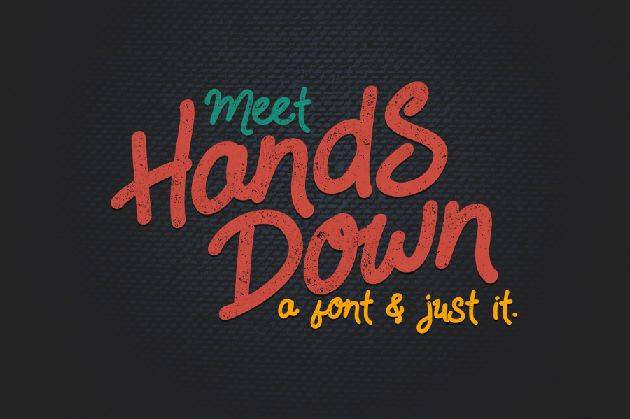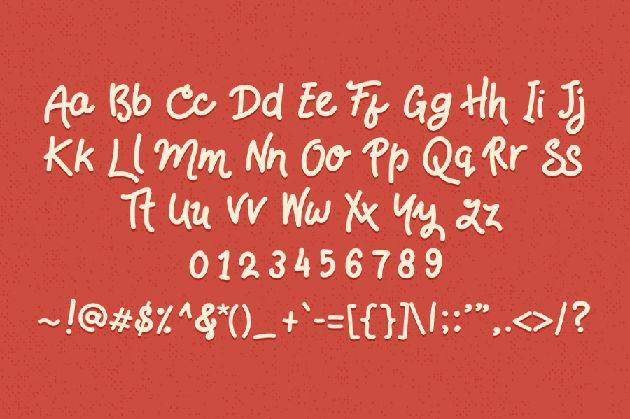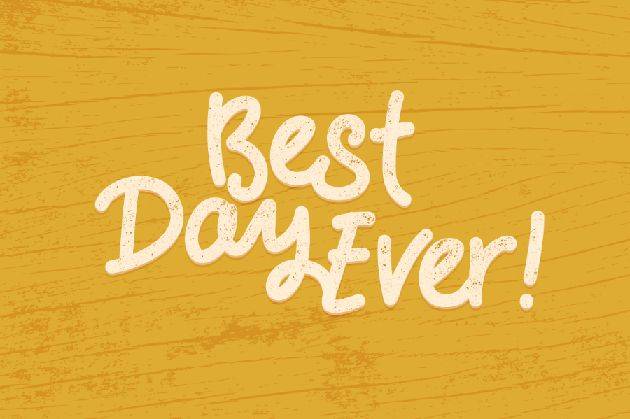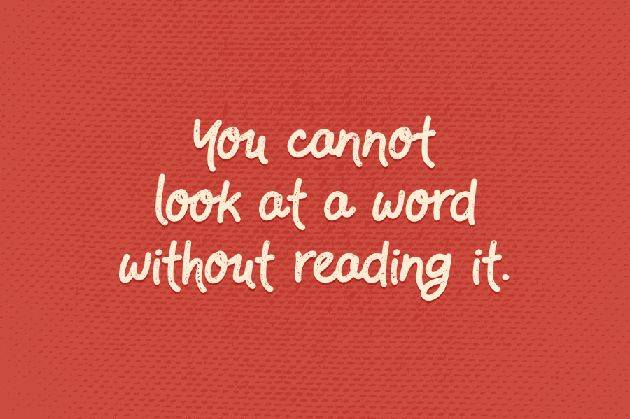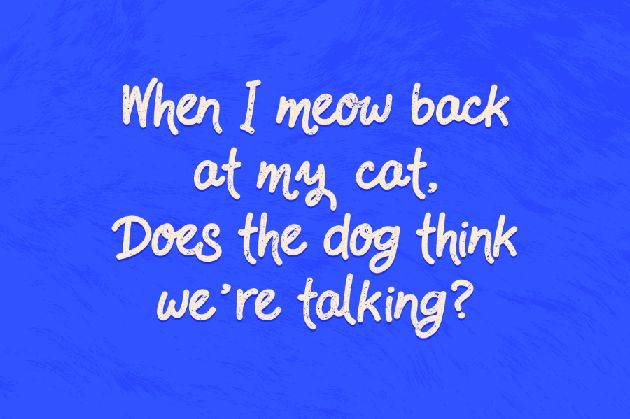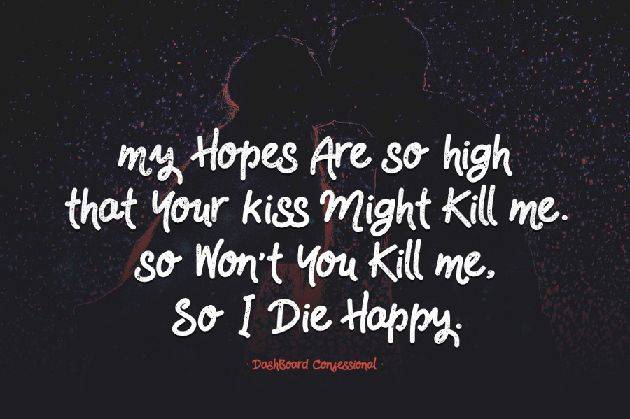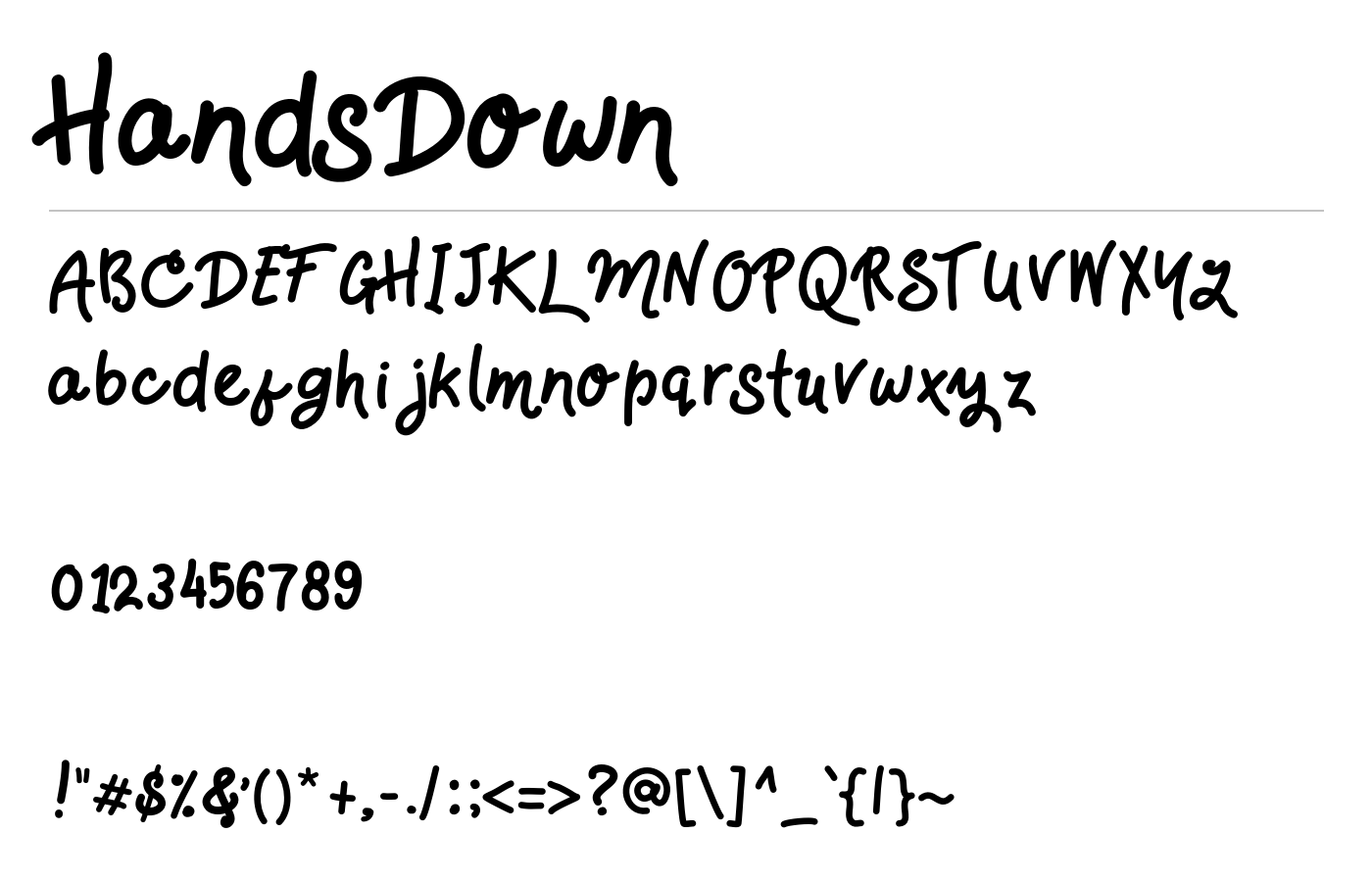
Hands-Down is a playful and casual handwritten script font that features smooth, rounded strokes and a lively rhythm, giving it an approachable and friendly feel. Its moderate weight and balanced letterforms make it perfect for creative projects that want to convey warmth and personality, such as invitations, branding, or informal headlines. This font’s hand-drawn charm works well for designs that seek a personal touch and a relaxed, inviting vibe.
Hands-Down Typeface
About Hands-Down Typeface
| Font family | Hands-Down Typeface |
| Designer | weirdeetz |